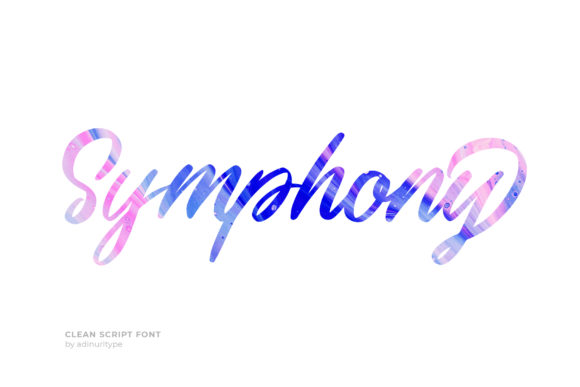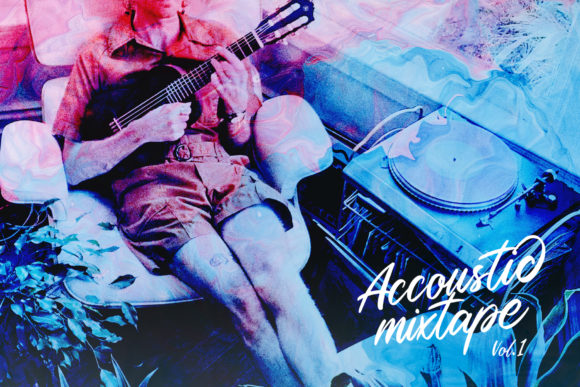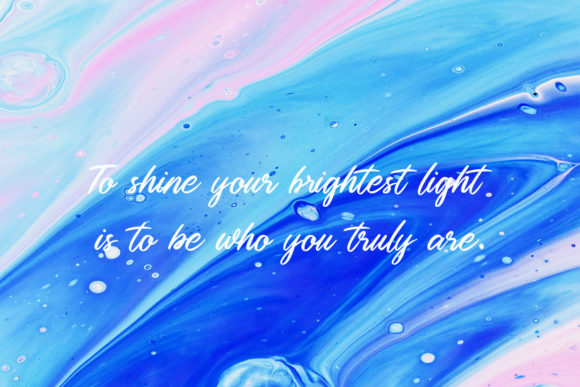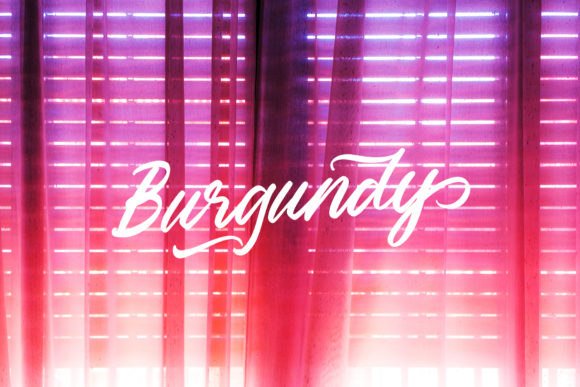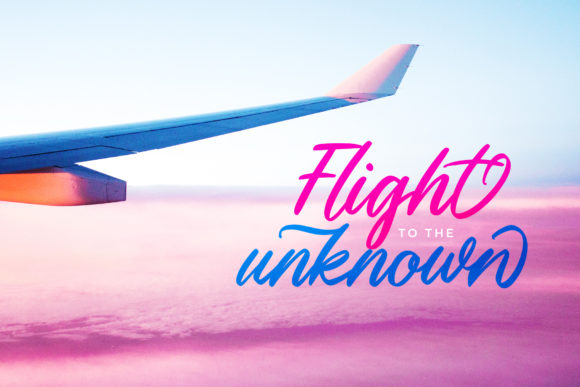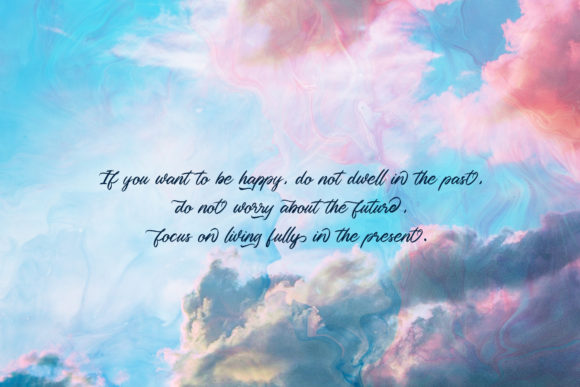
Symphony Font
About Symphony Font
Symphony is a gorgeous script with a clean and elegant style. It will look best in quotes, brand and identity projects, poster headlines, body texts and etc.